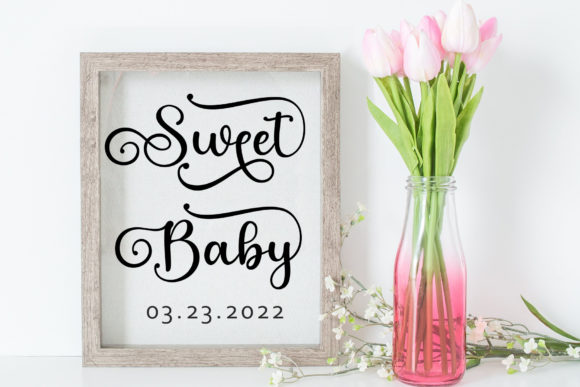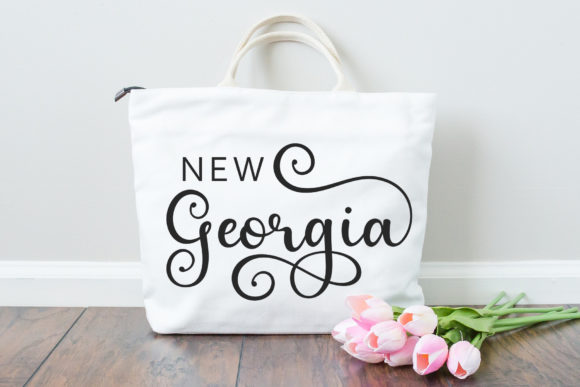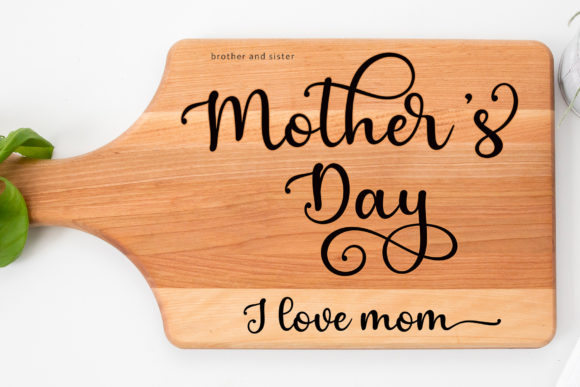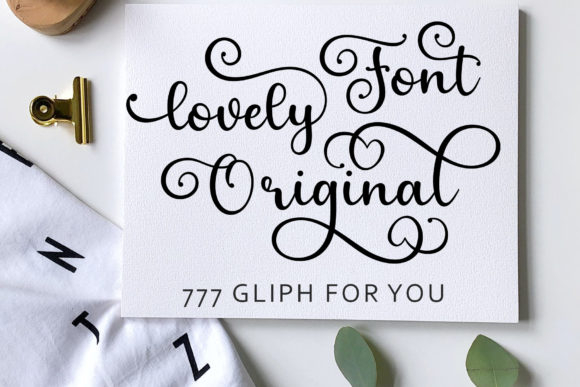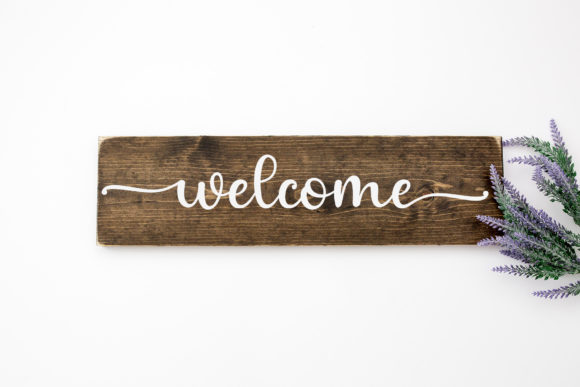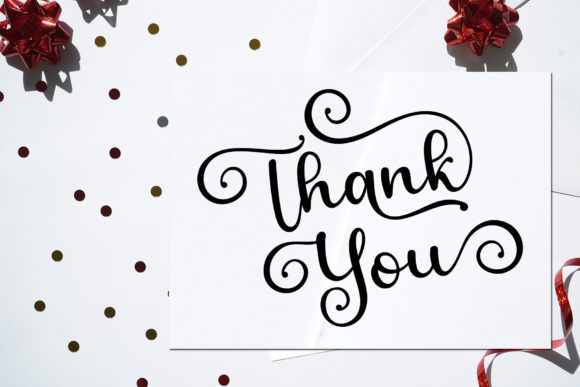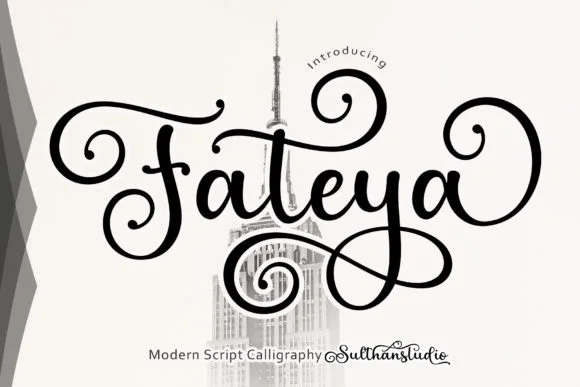
Fateya Font
About Fateya Font
Fateya is a meticulously handcrafted script font designed in a freestyle manner, tailored for individuals engaged in a wide spectrum of work and crafts. With an impressive total of 777 glyphs, this font offers a diverse range of characters, making it incredibly convenient for you to select and customize according to your unique needs.
This versatile typeface is well-suited for a myriad of creative projects, including but not limited to logos, wedding invitations, titles, t-shirts, letterheads, signage, labels, news articles, posters, badges, and more. Its adaptability and distinctive design make it an excellent choice for virtually any application where a handcrafted and expressive script font is desired.
The artistic and freestyle nature of Fateya adds a personal touch to your work, infusing it with character and creativity. The font’s extensive glyph collection ensures that you have a broad spectrum of options, allowing you to customize your text and bring a unique flair to your designs.
Whether you’re working on branding materials, event invitations, or promotional signage, Fateya shines with its ability to convey a sense of craftsmanship and individuality. Its handcrafted aesthetic lends a touch of authenticity, making it an ideal choice for projects that demand a personalized and artistic approach.
In summary, Fateya transcends being a mere font; it’s a versatile and expressive tool crafted for a variety of creative pursuits. With its extensive glyph set and freestyle design, Fateya empowers you to unleash your creativity, making it an invaluable asset for anyone seeking a distinctive and handcrafted script font to elevate their projects.